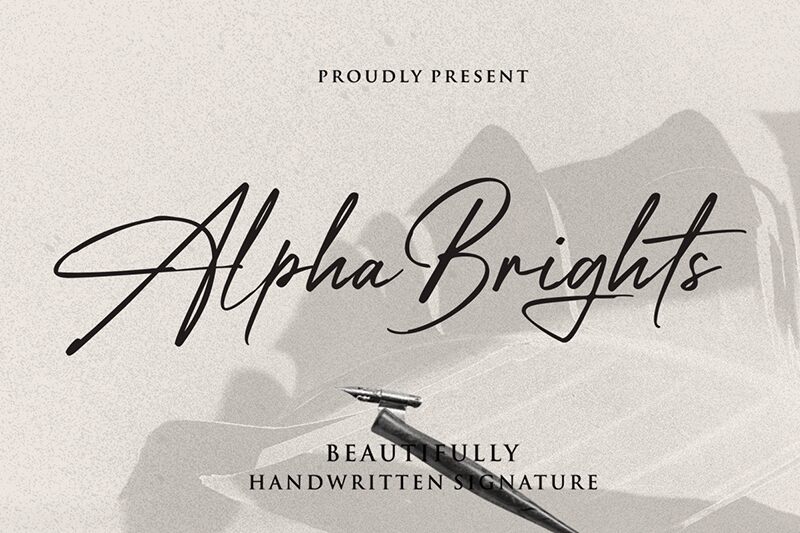
Alpha Brights
Alpha Brights font designed by Typeline Studio is a free handwritten font with a calm friendly look. Both elegant and expressive, it delivers graceful lines and fluidity with delightful artistry and composition. With stylish lowercase calligraphy letters, Alpha Brights displays a light modern script style that is both sophisticated yet simple at the same time.
Regardless of its simplicity, this free handwritten font takes an aesthetic approach differently than most classic scripts. With it, your invitations, logo designs packaging boxes, greeting cards direct mails digital platforms special promotions heading will carry an exceptionally legible light appearance while retaining their eye-catching nature.